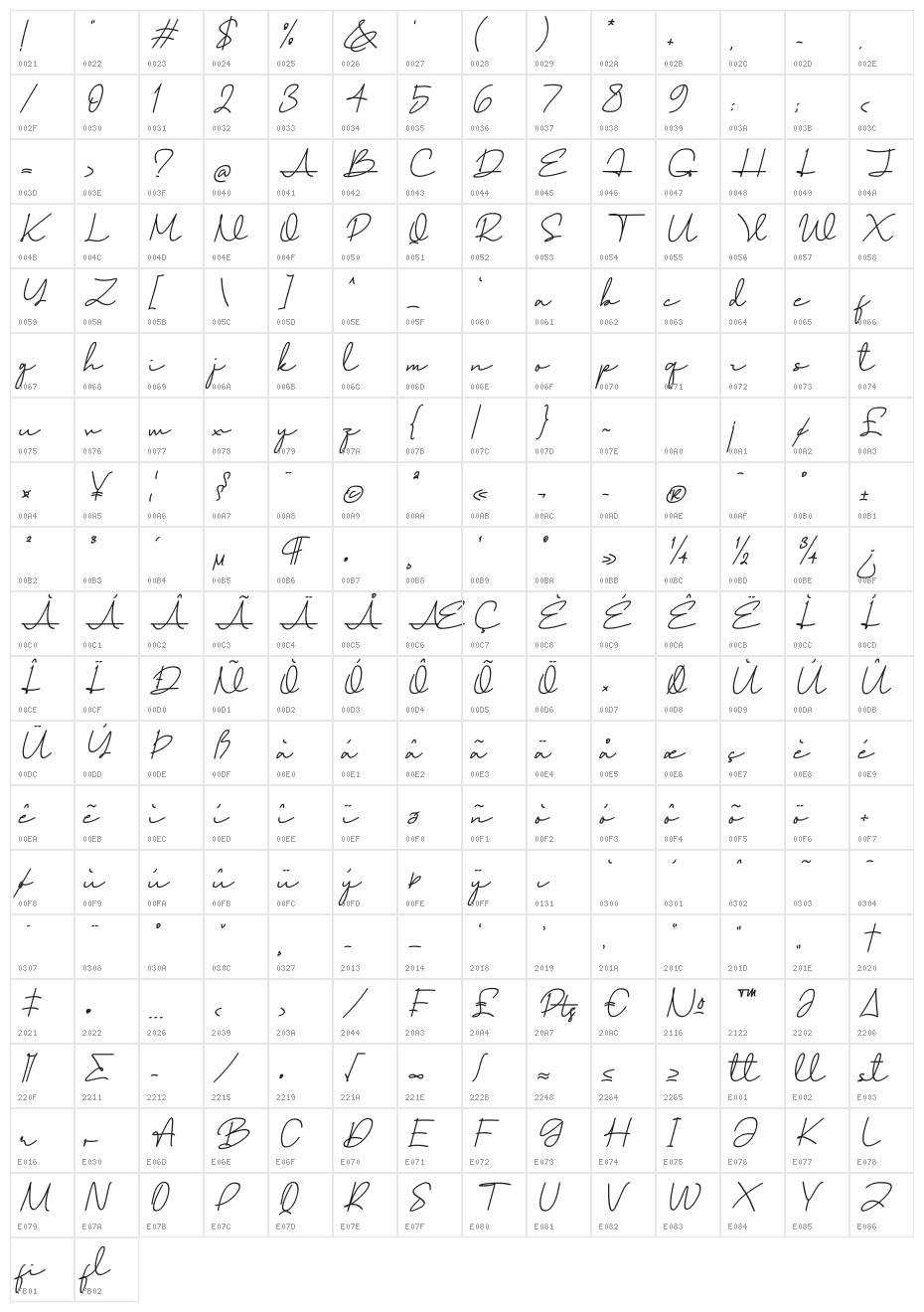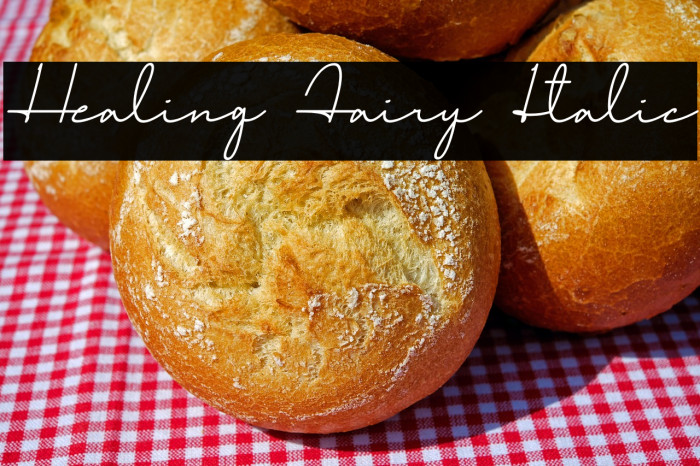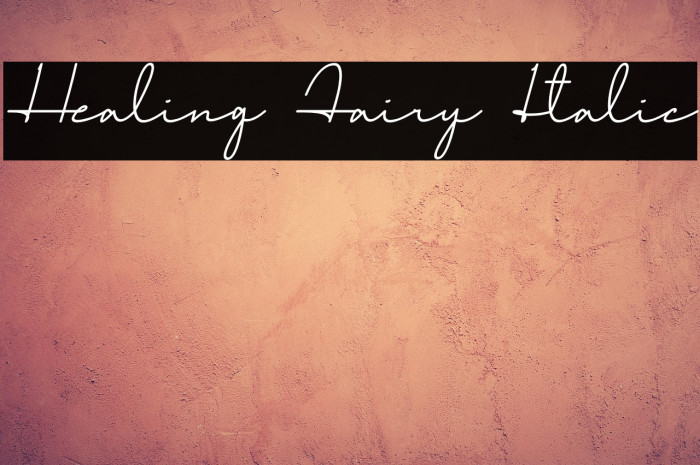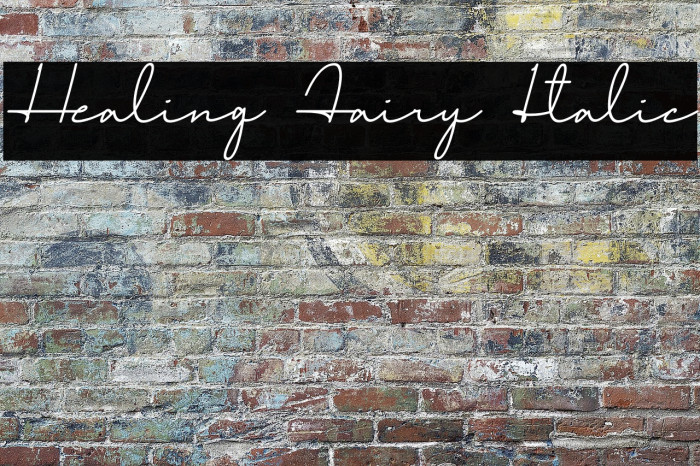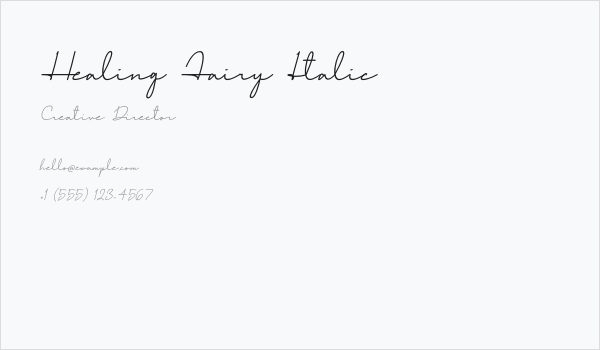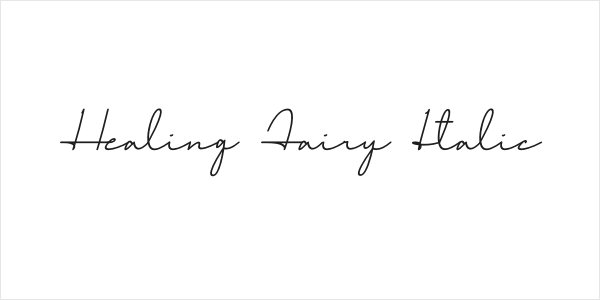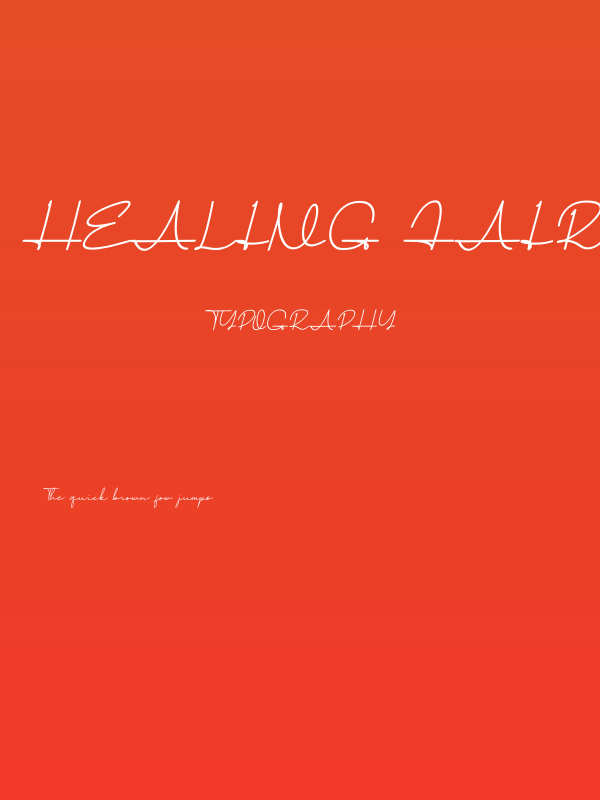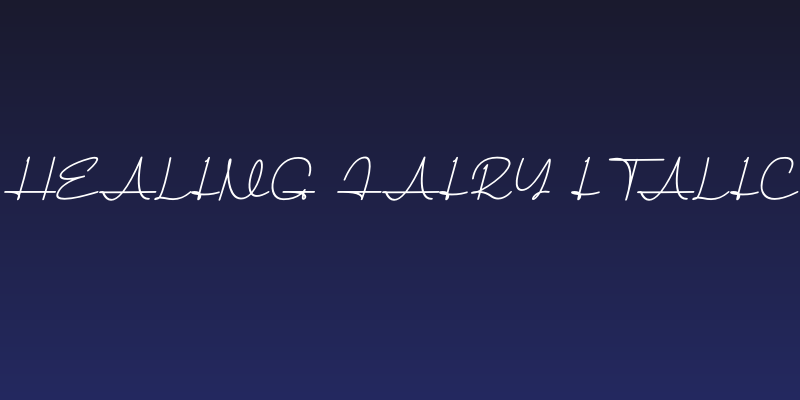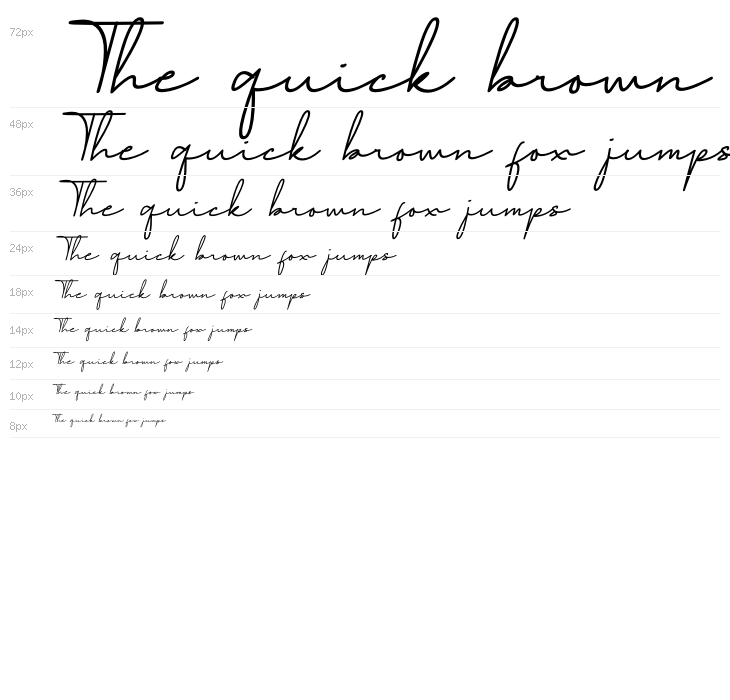
Healing Fairy Italic Font
Healing Fairy Italic Description
A flowing, cursive script font with a handwritten appearance, featuring connected letters, elegant loops, and consistent slant. The strokes are thin and fluid, giving a whimsical and airy feel.
| Overall Style | Decorative, Handwritten, Elegant |
| Use Case | Logos, Headlines, Invitations, Decorative text |
| Proposed Projects | Invitations, greeting cards, feminine branding, quotes, personal notes, decorative headings. |